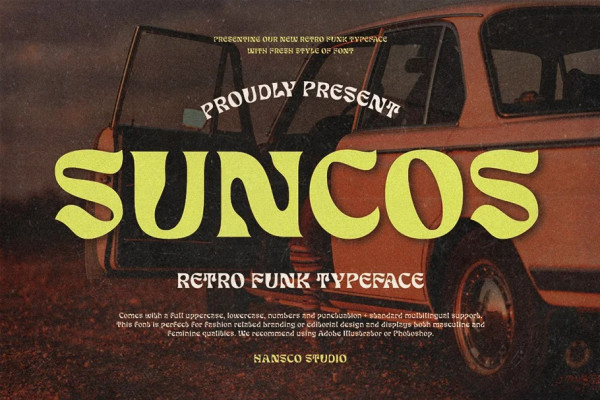
Suncos Retro Font
Suncos Retro Font is a retro funk fonts that feels casual and clean an incredible modern retro aesthetic. Use this display font to add that special retro funk vintage touch to any design idea you can think of!